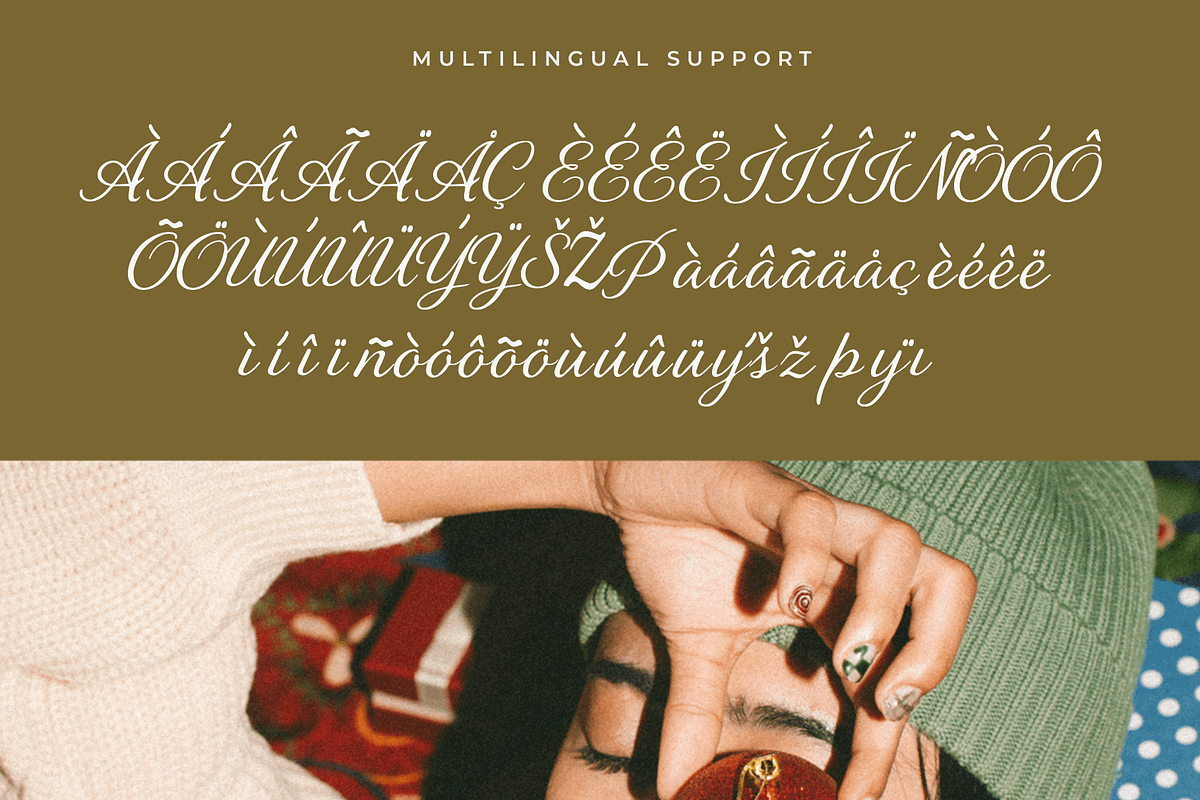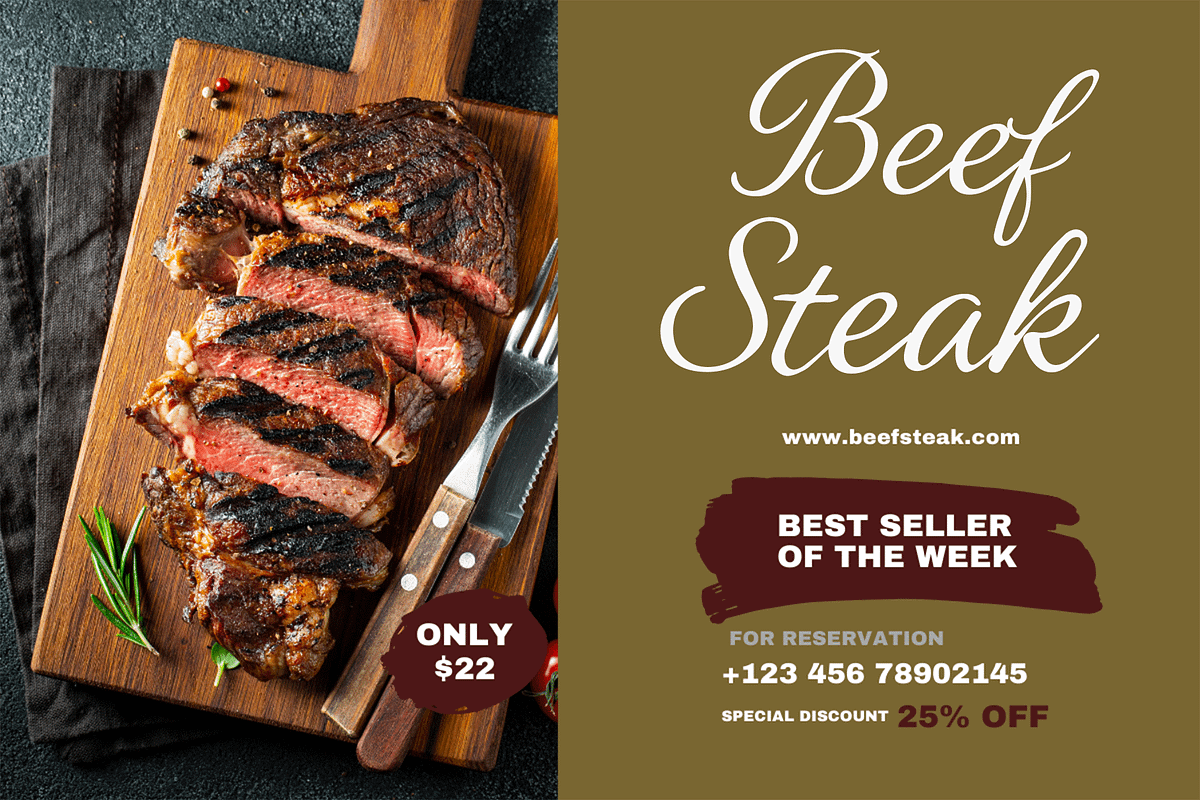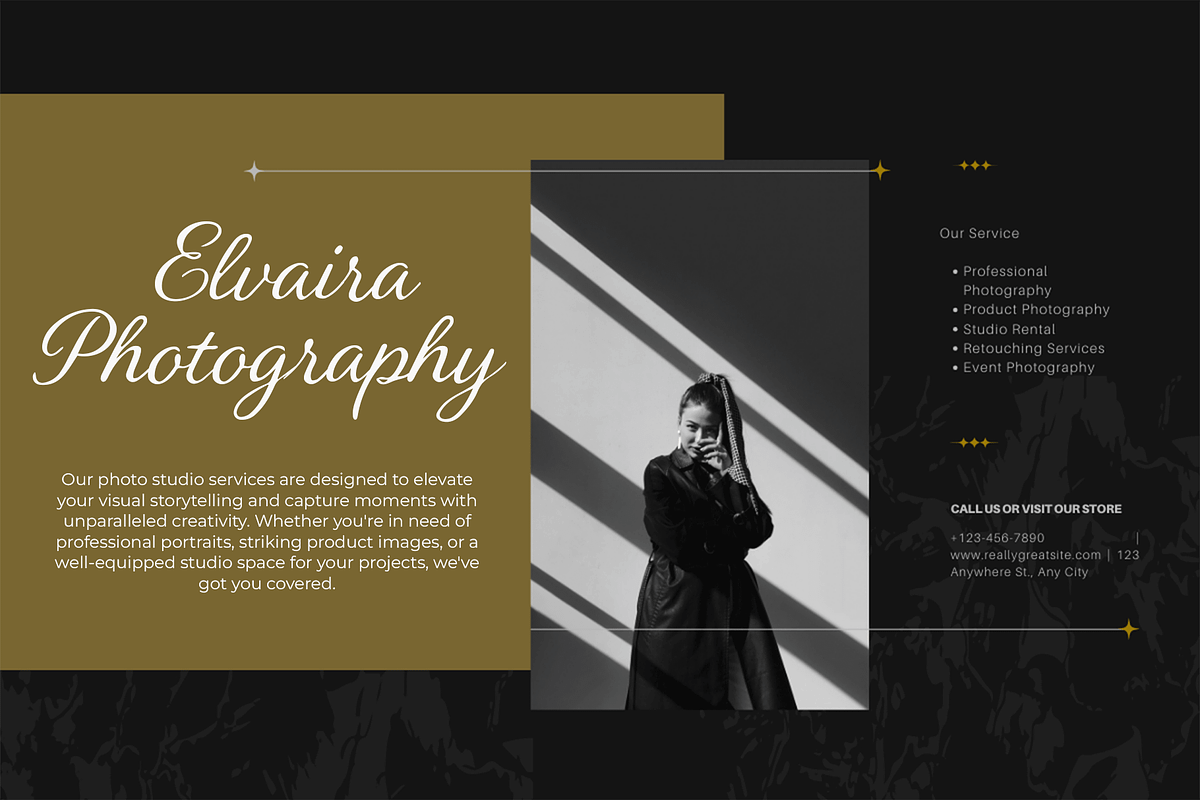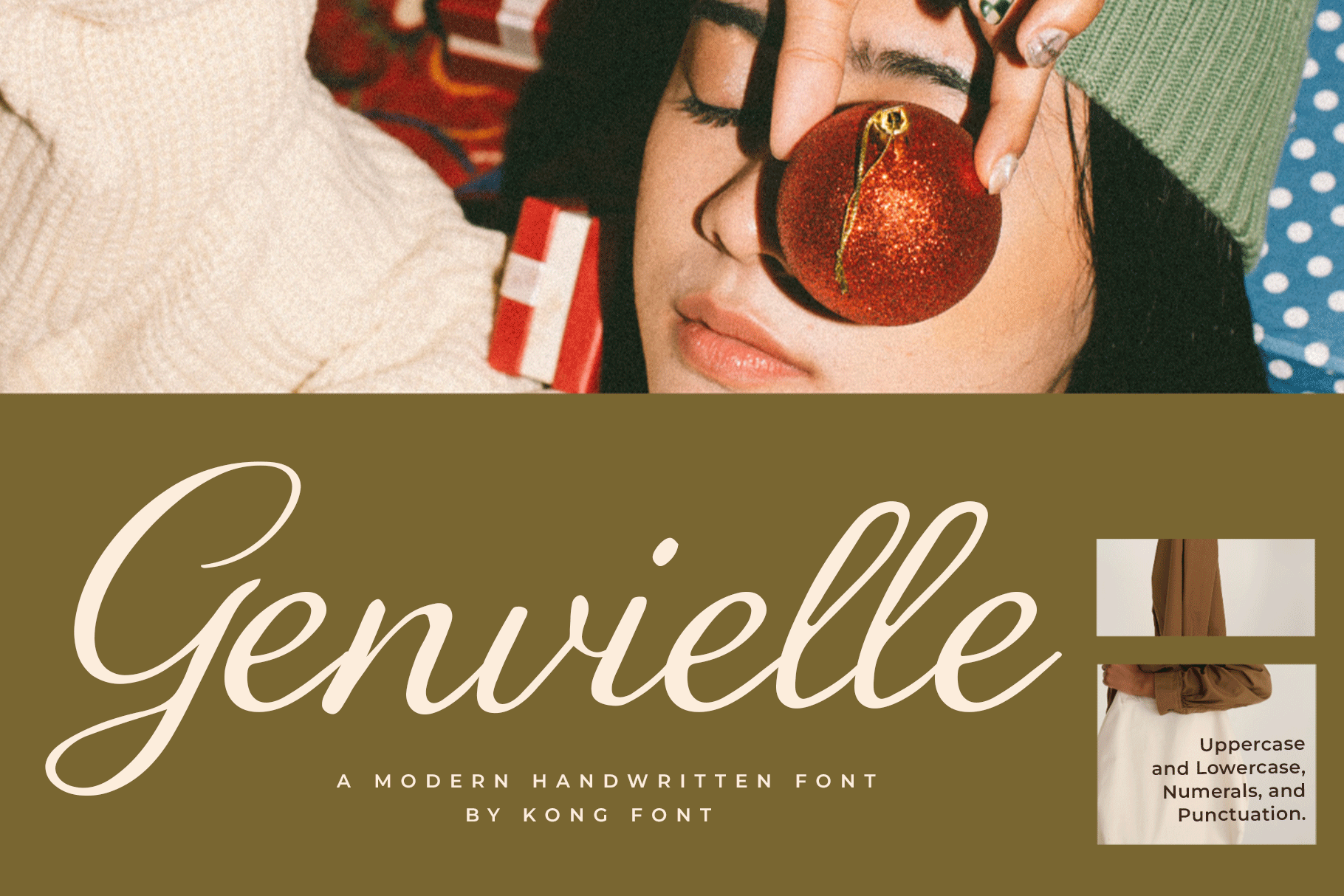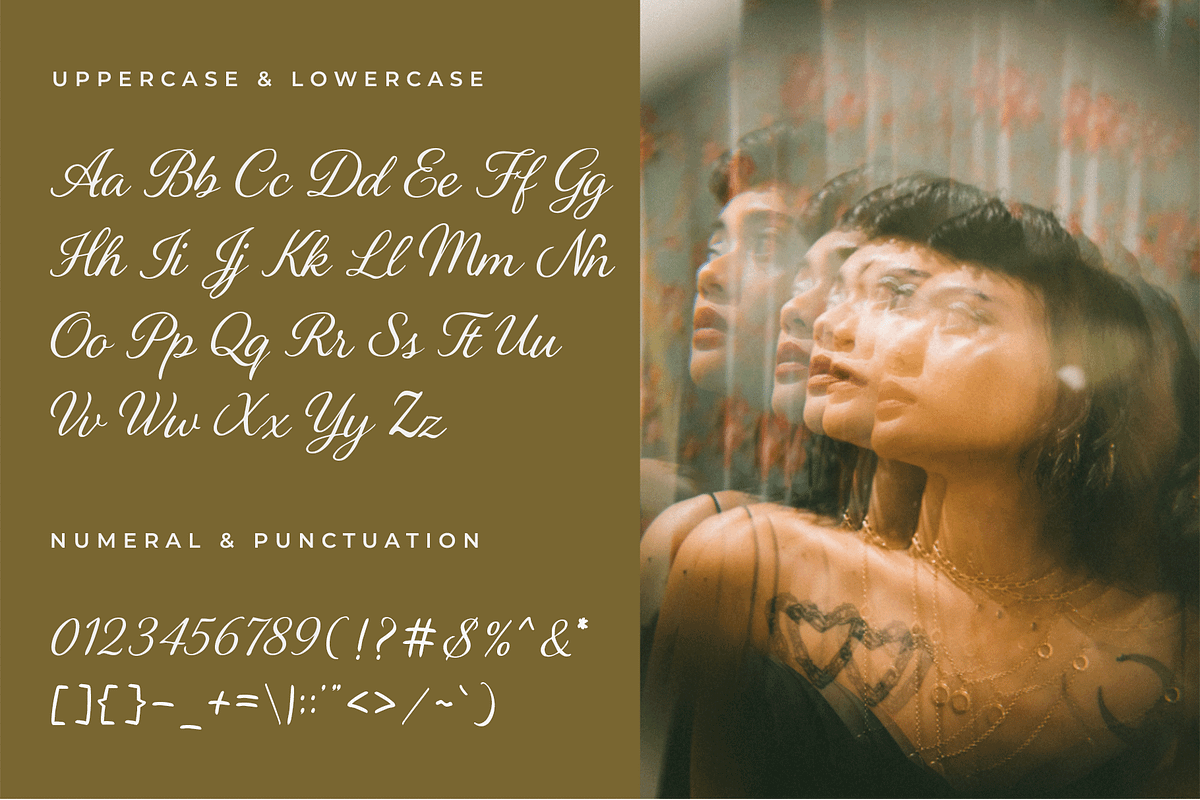
Genvielle – Modern Handwritten Font
Genvielle – A Modern Handwritten Font
Genvielle is a modern handwritten font that blends casual charm with refined elegance. With its fluid strokes and graceful curves, this font captures the authenticity of hand lettering while maintaining a clean, professional aesthetic. Perfect for projects that require a personal touch, Genvielle adds warmth and style to any design.
Whether you're crafting branding elements, wedding invitations, social media content, product packaging, or handwritten quotes, Genvielle delivers a soft, approachable character that feels both fresh and timeless. Its natural flow and well-balanced letterforms make it easy to read, while its personality elevates your message.
Bring a touch of modern handwriting to your creative work with Genvielle, where simplicity meets sophistication.